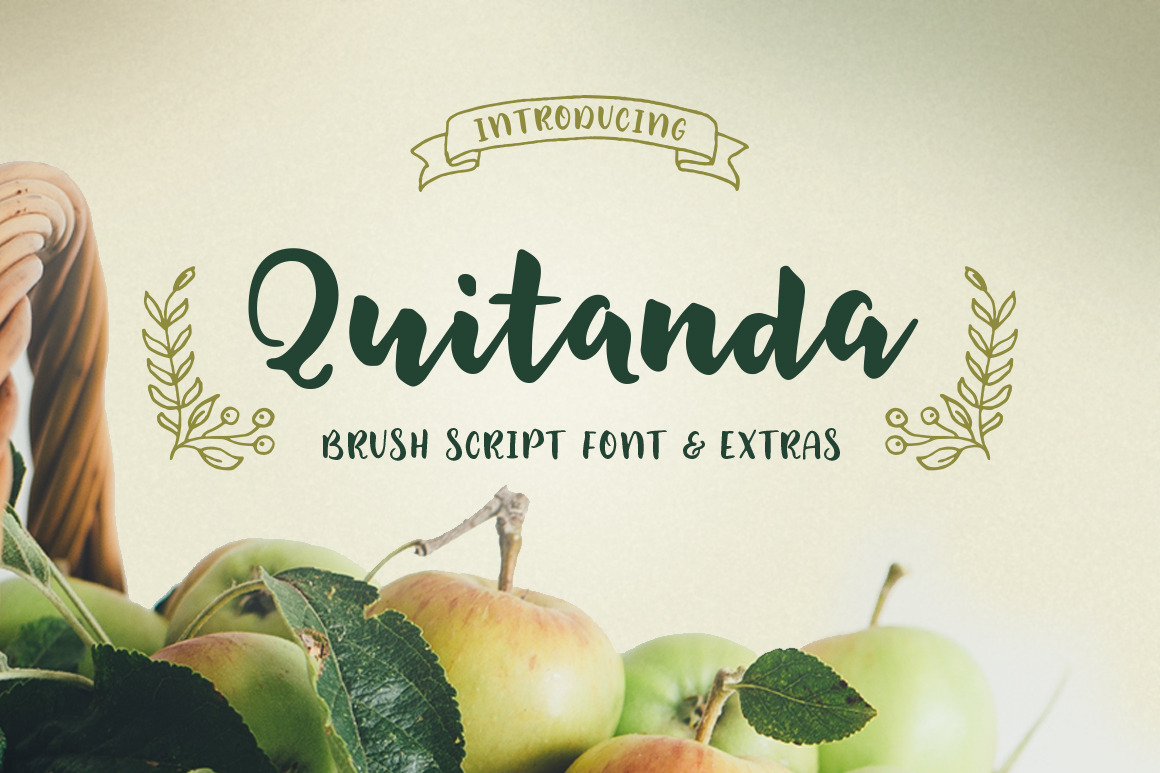
Quitanda Brush Script Font & Extras
Introducing Quitanda, a bouncy script font, handwritten with a brush pen and digitized. It comes with a set of complimentary handsketched vector graphics to give you plenty of design options to play around. And since I was at it, I went ahead and included a cool collection of pre-made logo templates, wreaths and laurels, too!
Use *Quitanda to add a casual, fun, fresh and trendy feel to your designs. Perfect for branding, social media, merchandise, stationery, packaging, and much more!
Quitanda Script has a set of ligatures and an extra set of lowercase letters for a more realistically handwritten quality. (If you'd like to see even more of Quitanda Script in use, please check out these previews: https://crmrkt.com/v9qqRQ